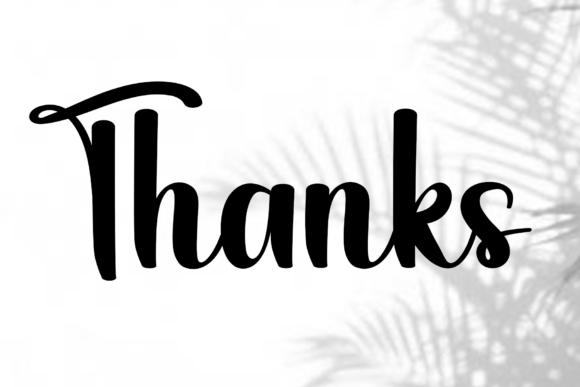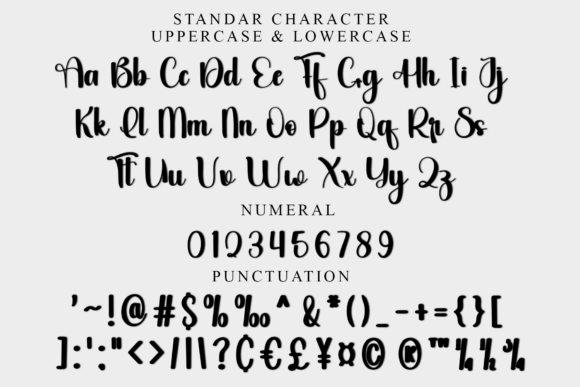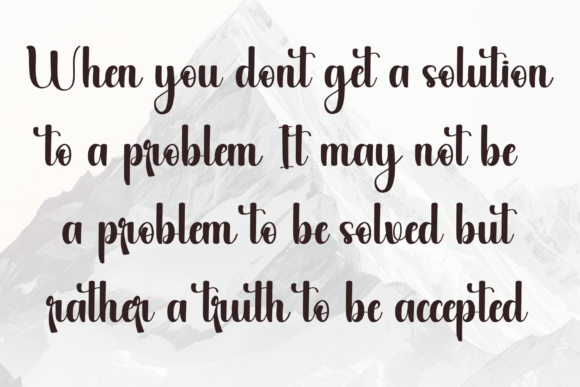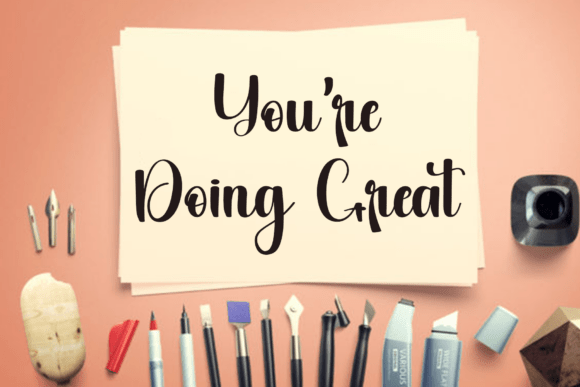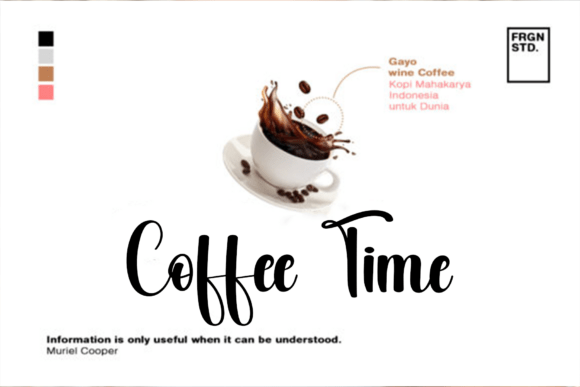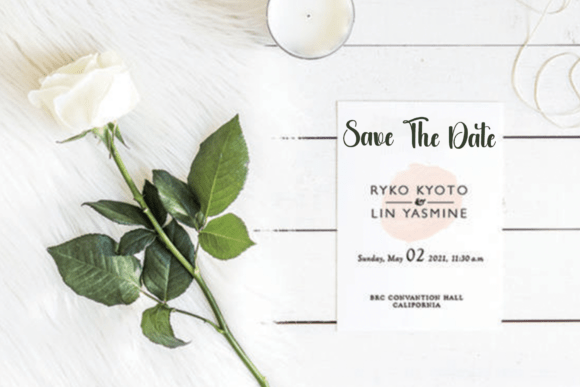
Introduction to Saturday Sniping Font
As a designer, there’s nothing quite like the thrill of working on a creative project that captures the essence of the holiday season. You’re browsing through font libraries, searching for that perfect combination of festive flair and timeless charm. And then, you stumble upon it – the Saturday Sniping Font, a delightful typeface that embodies the spirit of the season in all its glory.
This enchanting font is more than just a pretty face; it’s a valuable resource for designers looking to add a touch of magic to their holiday-themed projects. With its intricate decorations and whimsical flair, the Saturday Sniping Font is the perfect choice for greeting cards, gift tags, and other creative endeavors.
Key Features of Saturday Sniping Font
- High-quality design: The Saturday Sniping Font offers a unique blend of modern and vintage styles, making it perfect for creative projects.
- Resolution-independent: The font’s scalable design ensures crisp and clear text at any resolution, from small web graphics to large print materials.
- Unique characteristics: The Saturday Sniping Font boasts a distinctive aesthetic, with intricate details and flourishes that set it apart from other fonts.
- Perfect for creative projects: This font is ideal for designers, artists, and writers looking to add a touch of sophistication and elegance to their work.
Honest Review: Saturday Sniping Font
I recently had the chance to try out the Saturday Sniping Font, and I have to say it’s a unique addition to any design project. With a free download option, it’s easy to get started and see if this font is right for your creative project.
The Saturday Sniping Font offers a high quality design resource that’s perfect for anyone looking to add a bit of edge to their work. I particularly appreciated the transparent background, which made it easy to integrate into my design without any distractions.
Here are some of the things that worked well:
- ✨ Unique and bold style that’s perfect for making a statement
- ✨ High quality design that’s perfect for print or digital use
- ⚠️ Limited font sizes and styles to choose from
- ⚠️ May not be suitable for all design projects or audiences
Overall, I was impressed with the Saturday Sniping Font and would recommend it to anyone looking for a unique and bold design resource. Just be sure to keep its limitations in mind and use it wisely in your creative project.
To get the most out of the Saturday Sniping Font, use it in conjunction with other high-quality design resources. Experiment with different font sizes, colors, and styles to create a unique and eye-catching design.
The Saturday Sniping Font is perfect for use in social media graphics, blog posts, and marketing materials. Its transparent background and high-quality design make it ideal for use in a variety of creative projects.
Is Saturday Sniping Font suitable for high-resolution printing?
Yes, Saturday Sniping Font is designed for high-resolution printing. It’s a high-quality font with clear lines and a transparent background, making it perfect for use in creative projects that require high-quality output. You can use it in your design work, including business cards, brochures, and other print materials, without any issues.